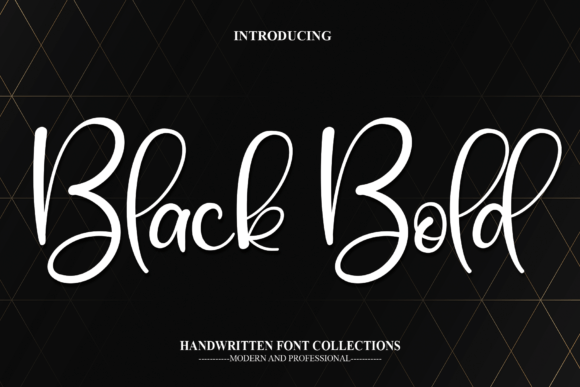
The Magic of Black Bold Font: A Designer’s New Best Friend
An Honest Review of Black Bold Font
- ✨ Sweet and versatile: Black Bold Font is perfect for a wide range of design projects, from wedding invitations to social media graphics.
- ✅ Elegant and stylish: This font exudes sophistication and glamour, making it ideal for high-end designs.
- 💕 Romantic touch: The handwritten feel of Black Bold Font adds a touch of warmth and personality to any design.
While Black Bold Font is an amazing font, it’s not perfect. Here are a few things to keep in mind:
- 🤔 Limited use in body text: Due to its bold nature, Black Bold Font might not be the best choice for lengthy body text. It’s better suited for headings, titles, or short paragraphs.
- ⚠️ Glyph limitations: While Black Bold Font has a range of glyphs and alternates, it might not have every special character you need. Be sure to check the font’s capabilities before committing to a project.
The Story Behind Black Bold Font
Black Bold Font was designed with love and care by a talented type designer who wanted to create a font that would add a touch of elegance and romance to any design. The font’s creator drew inspiration from classic calligraphy and modern handwriting, resulting in a unique and versatile font that’s perfect for a wide range of projects.
Q: What is Black Bold Font best used for?
A: Black Bold Font is ideal for designs that require a touch of elegance and romance, such as wedding invitations, social media graphics, or DIY crafts.
Q: Is Black Bold Font available in different weights or styles?
A: Black Bold Font is primarily available as a bold font. However, some font packages may include additional weights or styles, so be sure to check with the font’s creator or supplier.